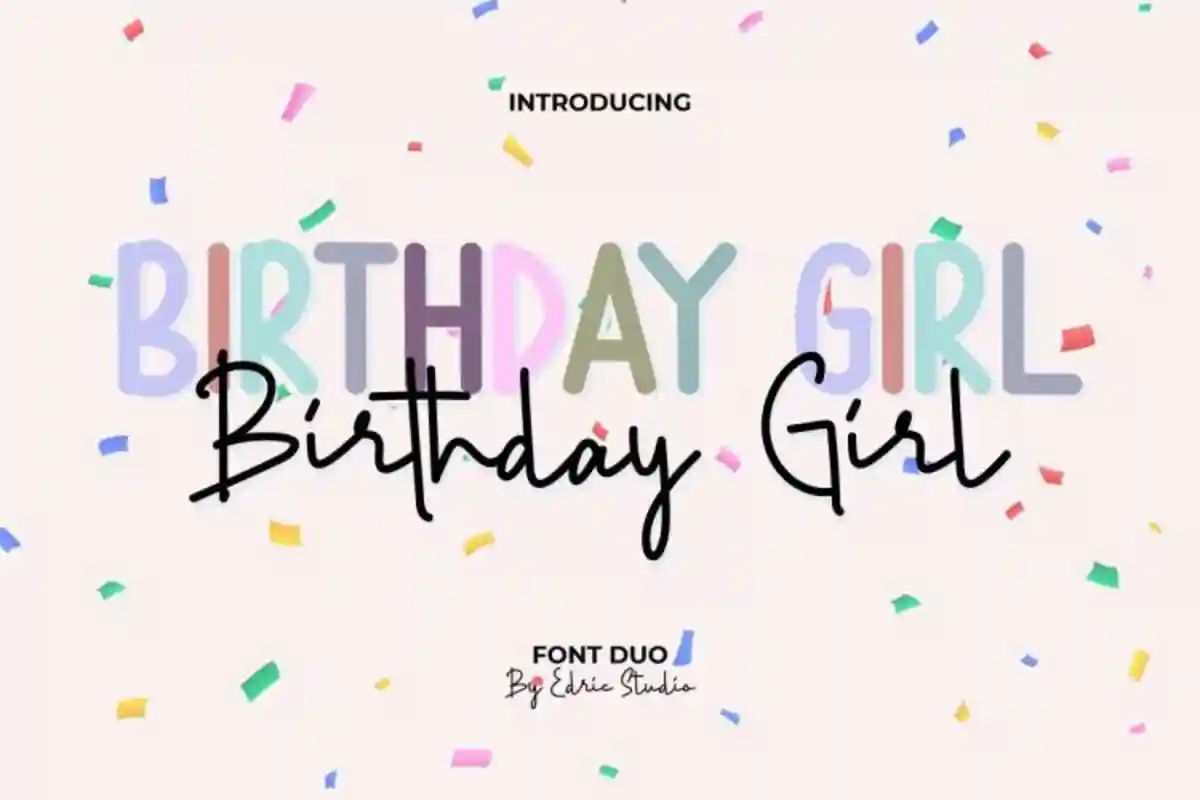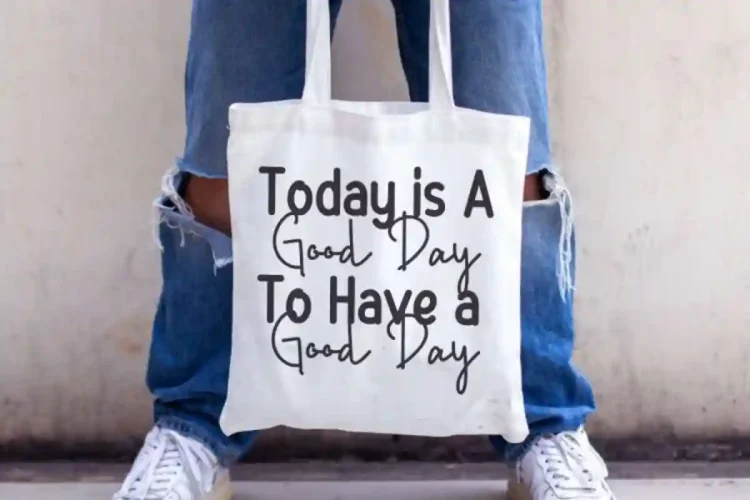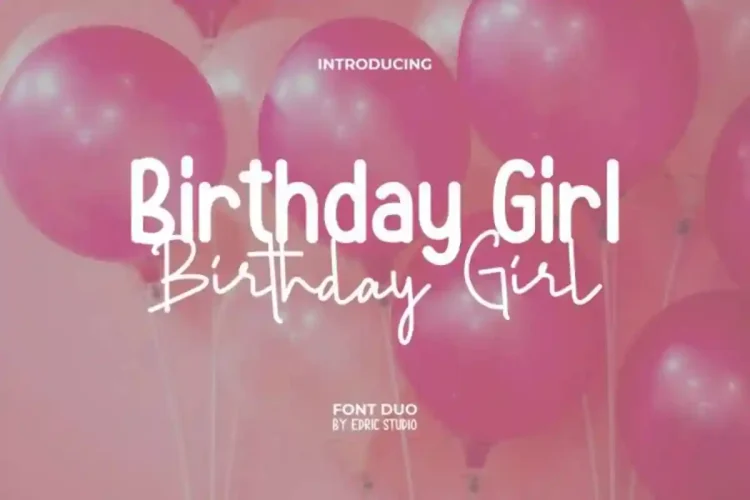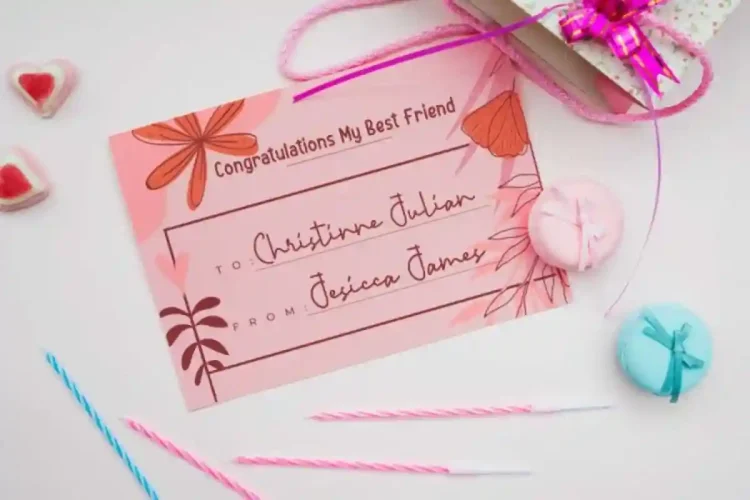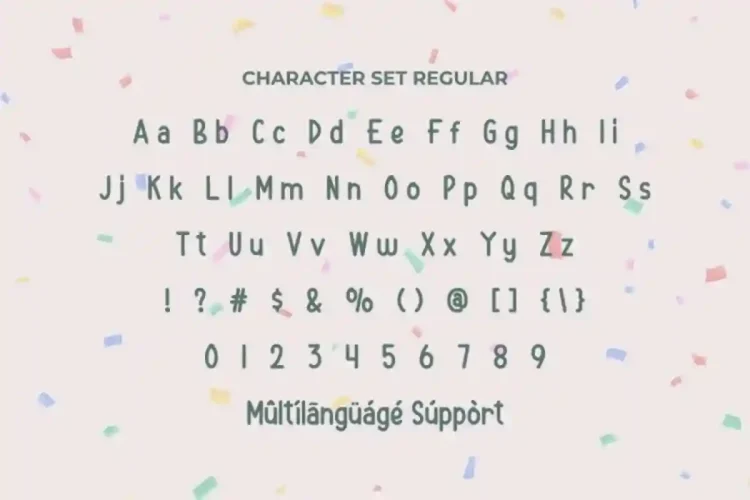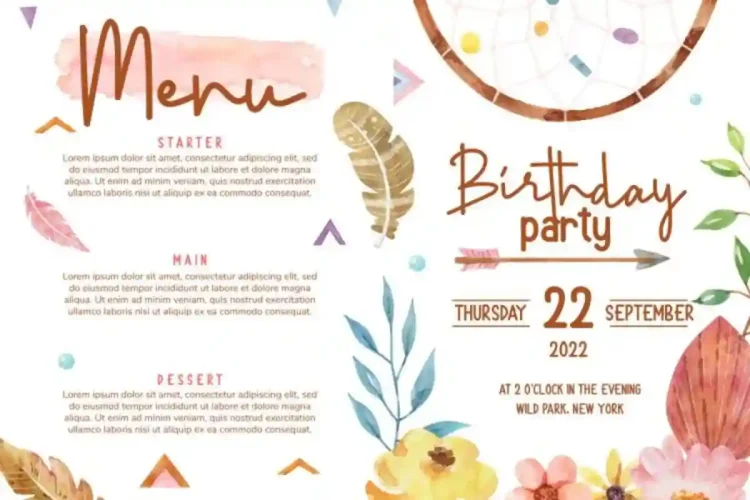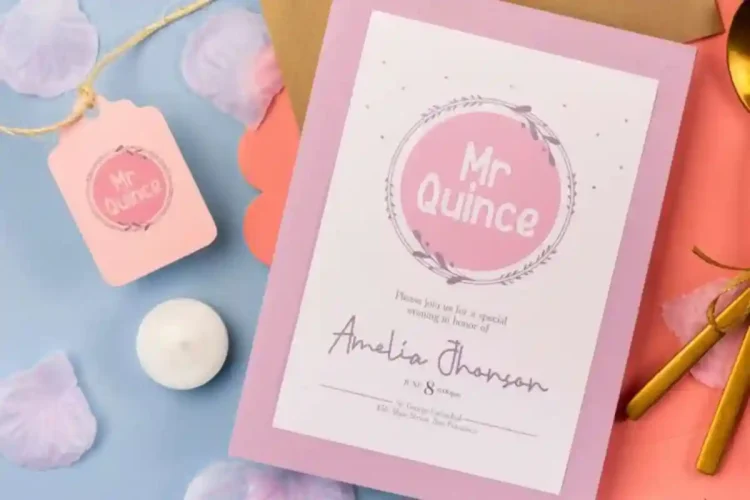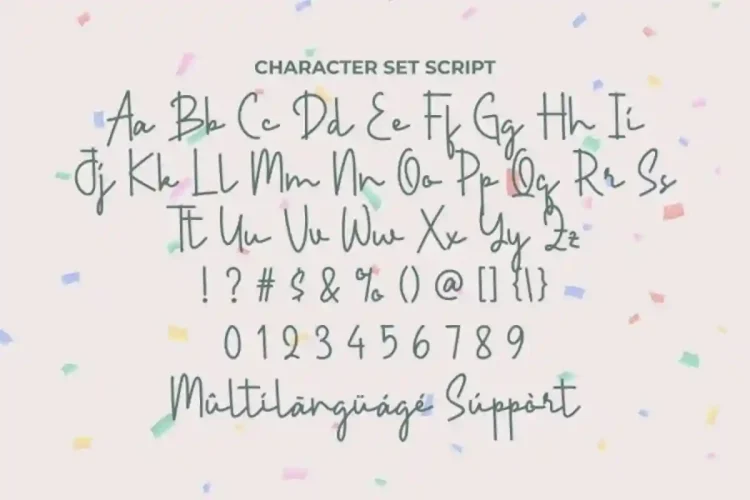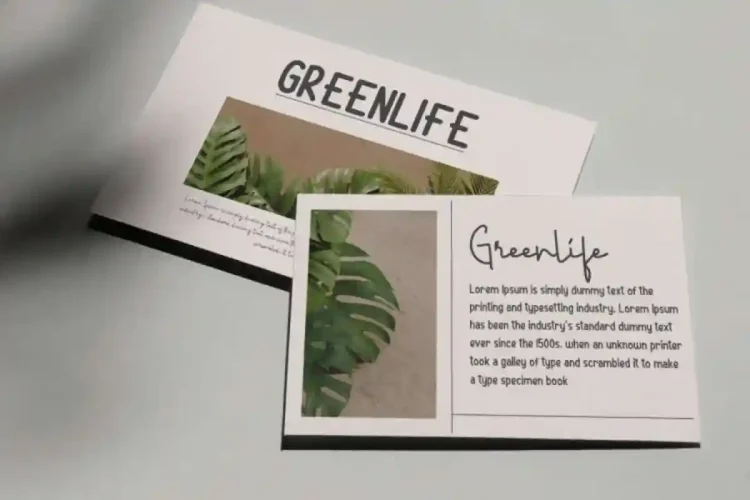
Birthday Girl Handwritting Font Duo
Birthday Girl Handwritting Font Duo is a fun and cheerful font duo by EdricStudio. This cute font is suitable for many design projects such as make birthday cards, invitations, products design, sweet quotes and much more. Handcrafted with love, this duo is perfect for anyone who wants to make their design stand out while adding a festive, elegant touch.
Birthday Girl Handwritting Font Duo is is a gorgeous combination of a comic sans serif and a signature script. These stylish fonts will also be great for modern designs, logos, posters, branding, social media or blog posts, headers and more!
Birthday Girl Handwritting Font Duo consists of uppercase, lowercase, number, and punctuation for a natural lettering look, and multilingual support. Works on PC & Mac, accessible in the Adobe products (Illustrator, Photoshop, Adobe InDesign), even work on Microsoft Word.